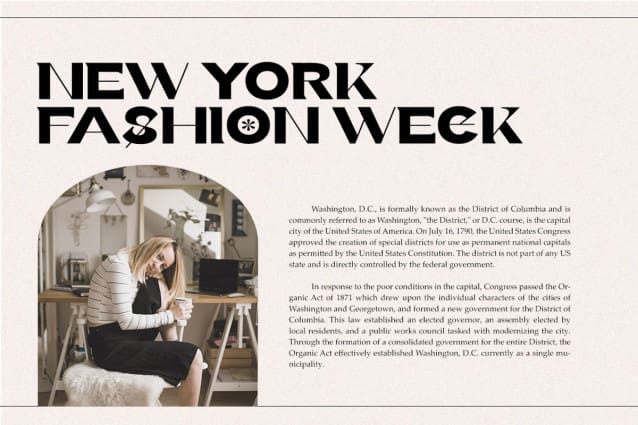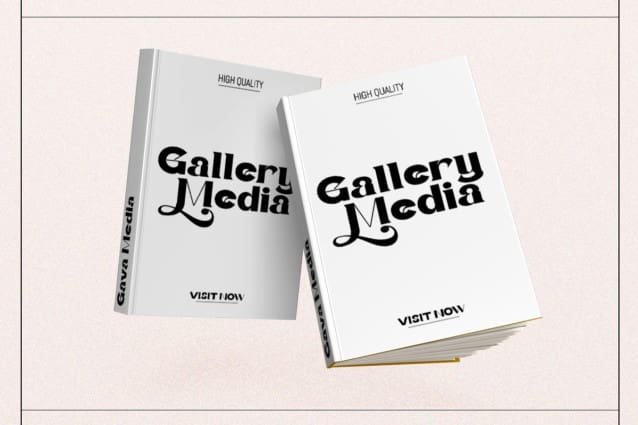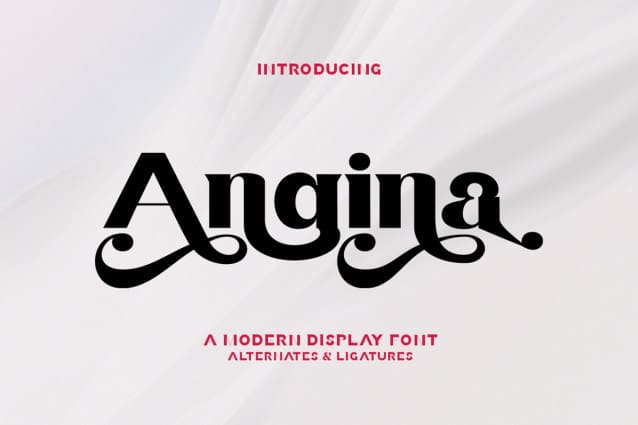
Angina Display Font
Angina Display Font is a Display typeface that is luxuriously bold and bold in style specifically for strong use, with a versatile touch. Consists of 3 styles, Regular, Outline, Italic, and Outline Italic and is very suitable for all medium or large uses because of the exact line shape, which made by flying machines. It is suitable for graphic design and screen use whatever your project is like branding, magazines, editorials, wedding invitations, logo design, posters, social media, and more! Also supports multilingual and PUA encoded!